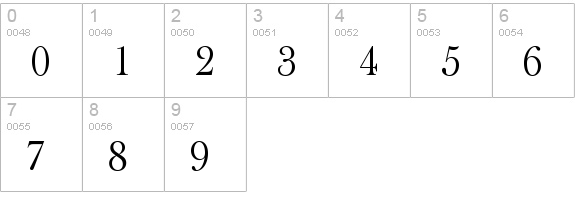
Oldbaskerville-Regular is the standard, neutral variant in the Oldbaskerville typeface family \xE2\x80\x94 well suited to general body text, paragraphs, and standard typographic work.
Oldbaskerville-Regular is a classic serif font that exudes timeless elegance and sophistication. With its graceful letterforms and balanced proportions, this font is perfect for adding a touch of refinement to any design project. The Oldbaskerville-Regular font is versatile and can be used for a wide range of applications, from invitations and logos to editorial layouts and branding materials. What sets Oldbaskerville-Regular apart is its subtle vintage charm and understated beauty. The font's crisp lines and delicate serifs create a sense of tradition and reliability, making it a popular choice for designers looking to evoke a sense of heritage and longevity in their work. Best of all, Oldbaskerville-Regular is available for free download at FontsMarket.com. This means that you can easily access this exquisite font and incorporate it into your projects without any cost. Whether you're a seasoned designer or just starting out, Oldbaskerville-Regular offers a high-quality, professional typeface that will elevate your designs to the next level.